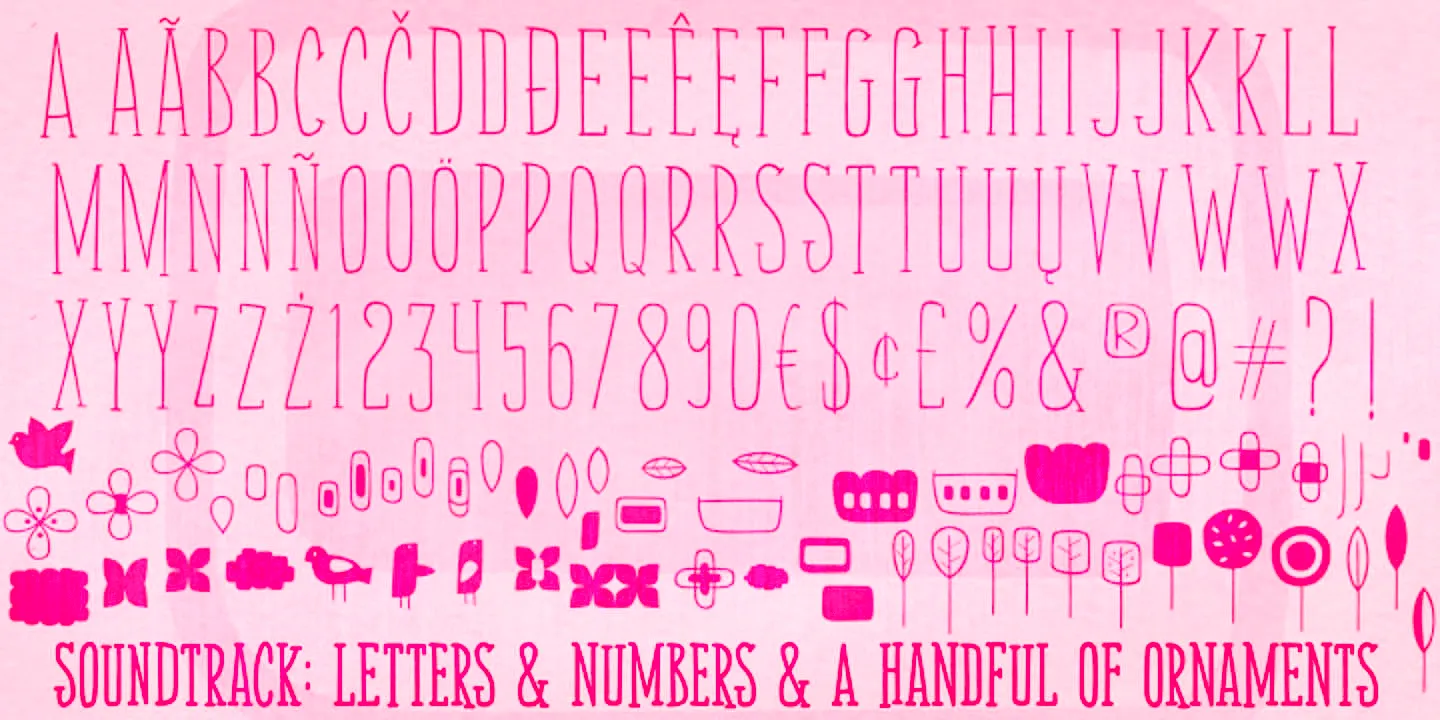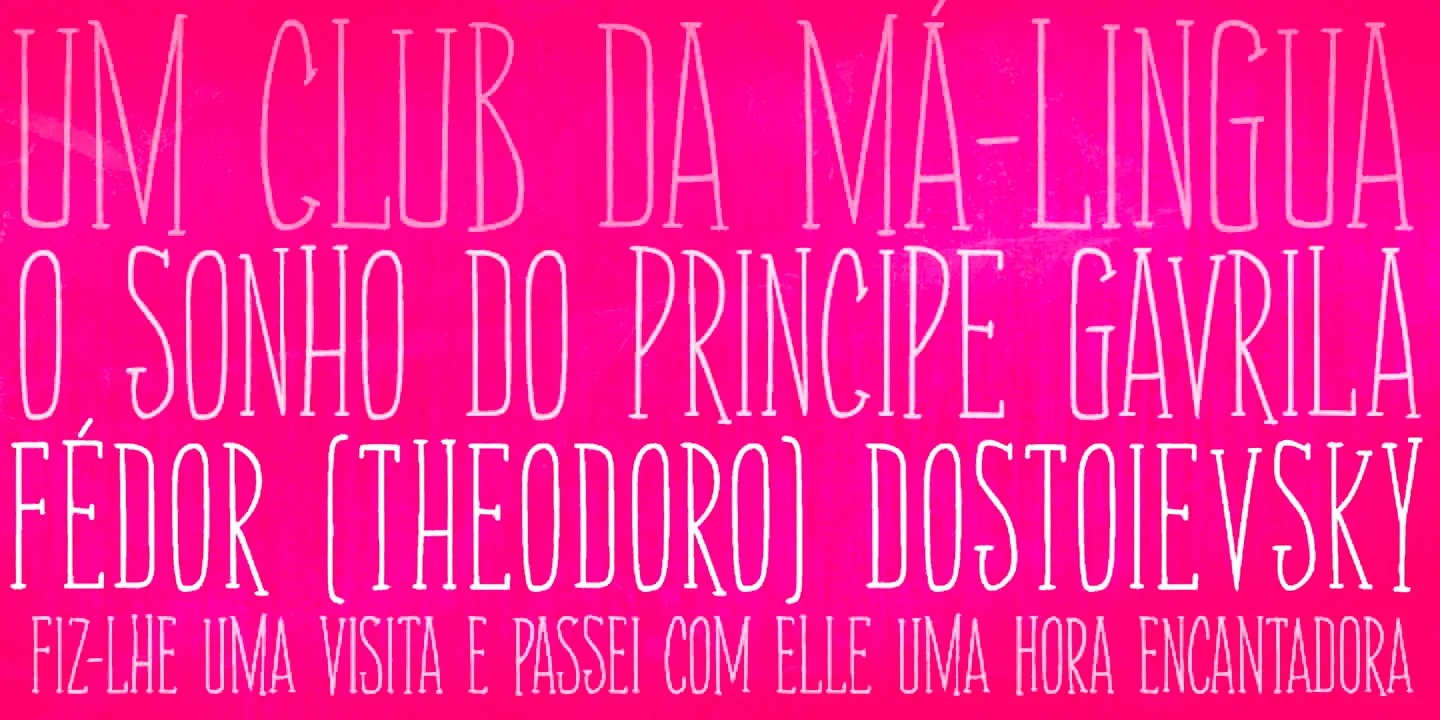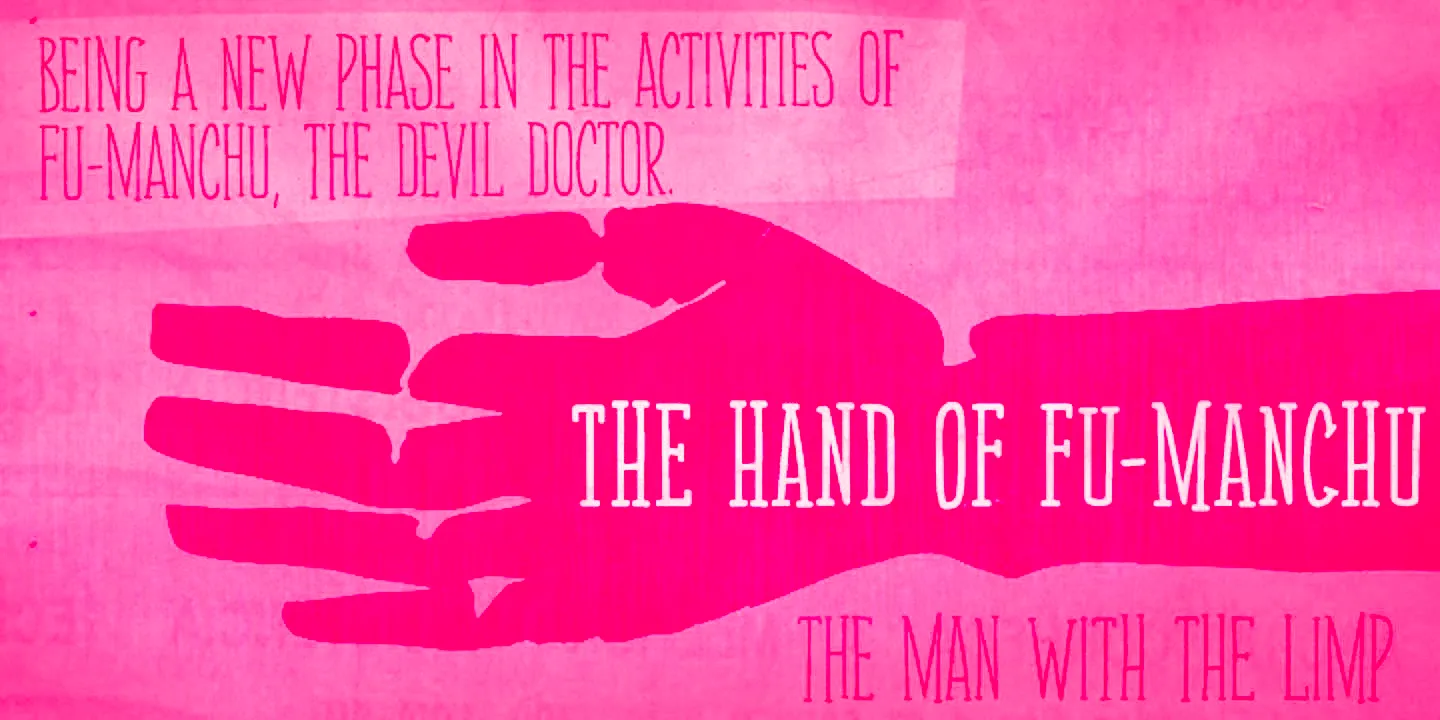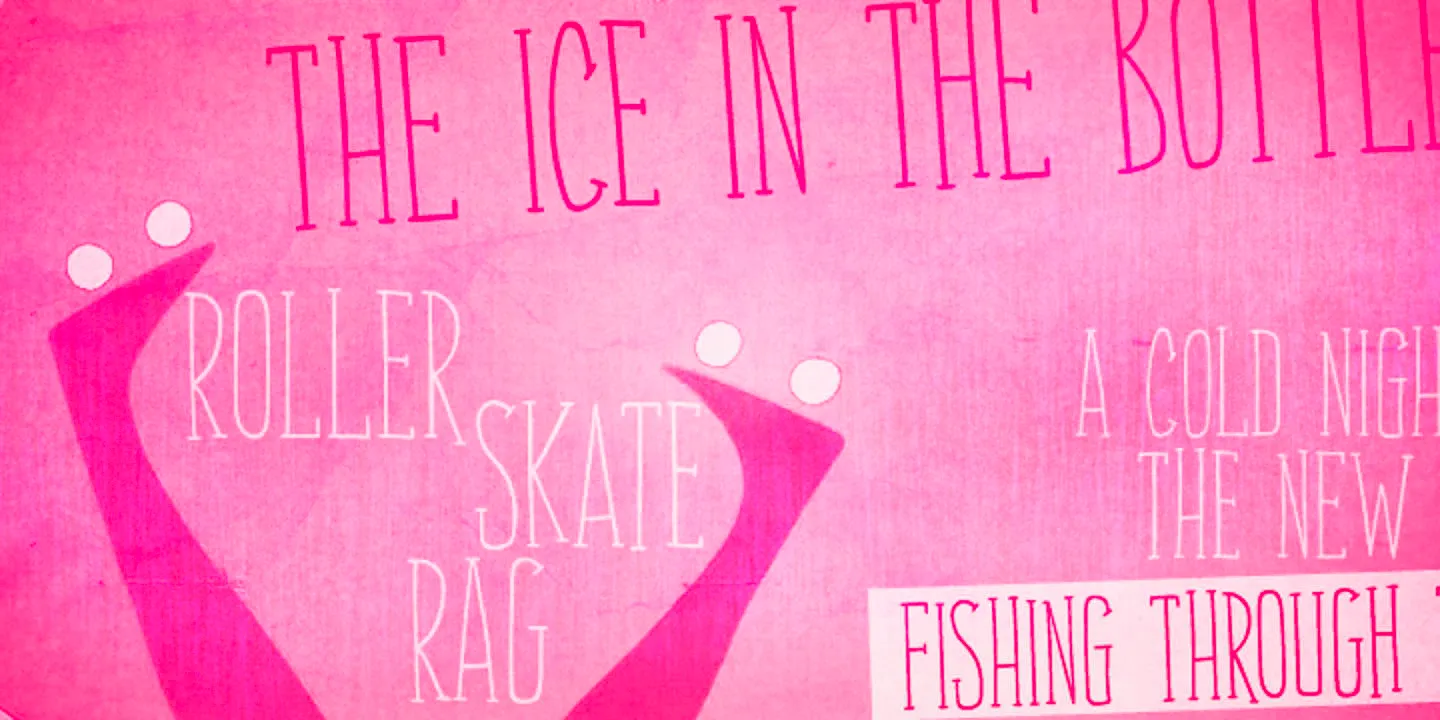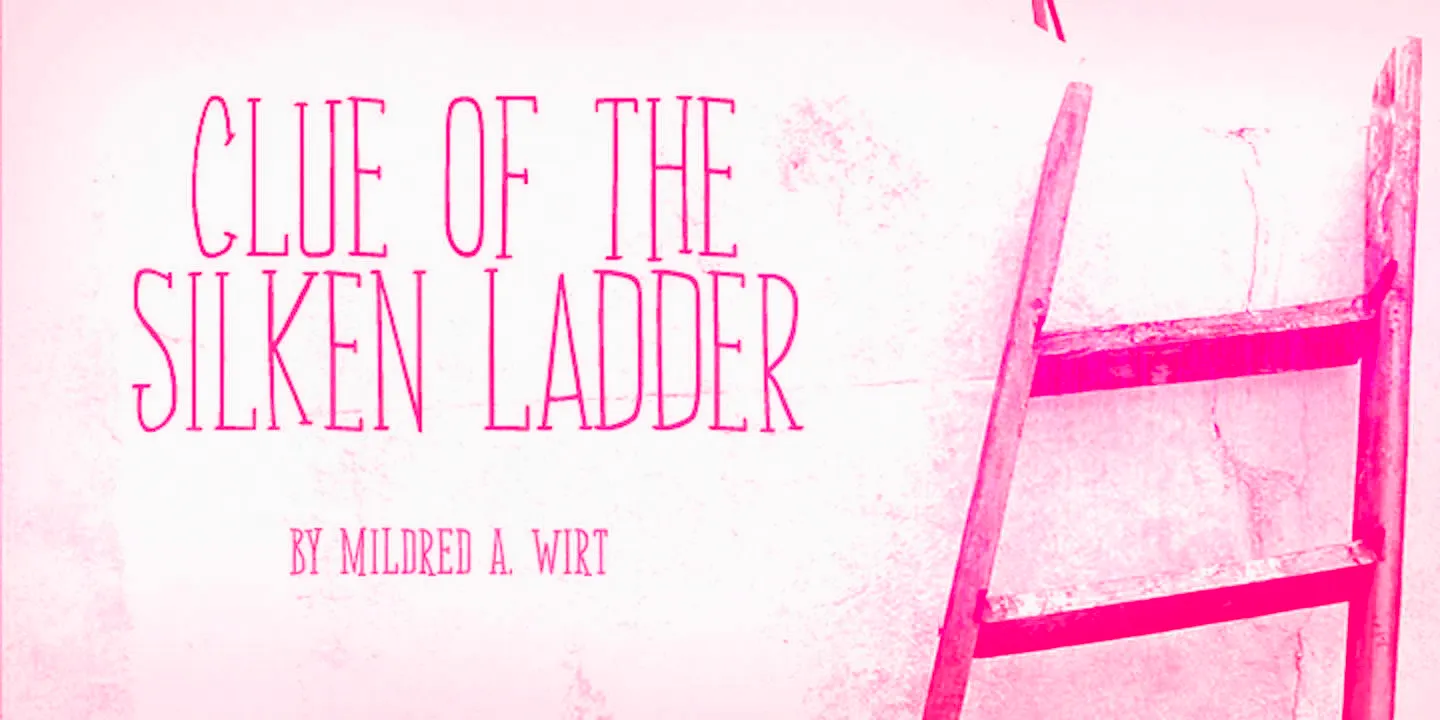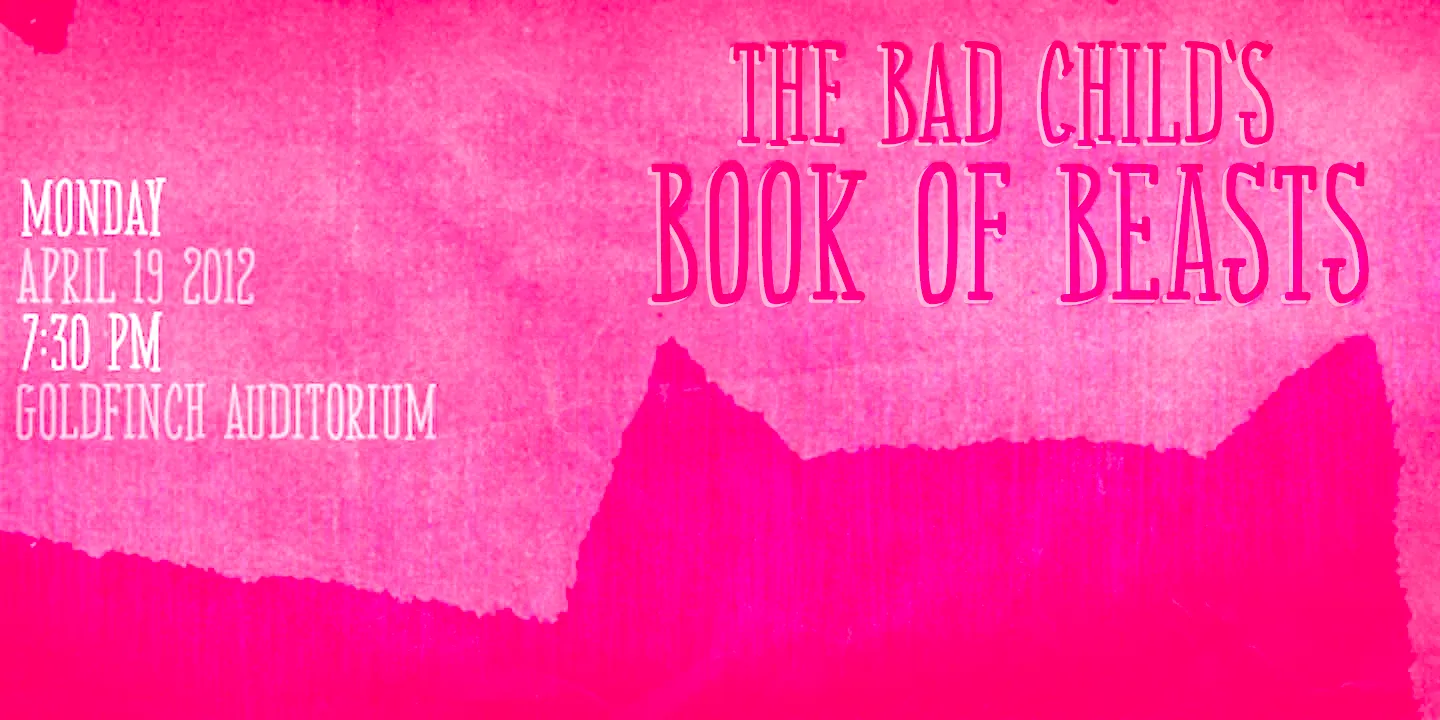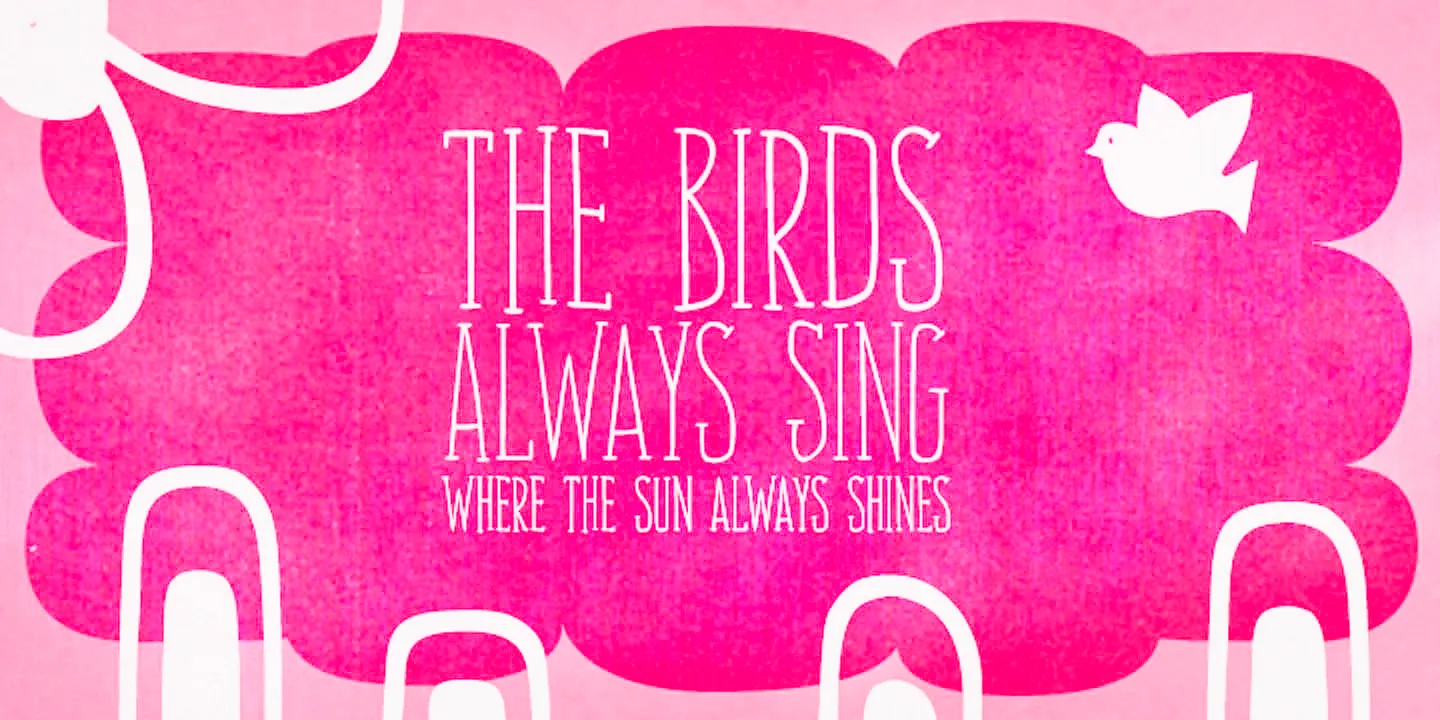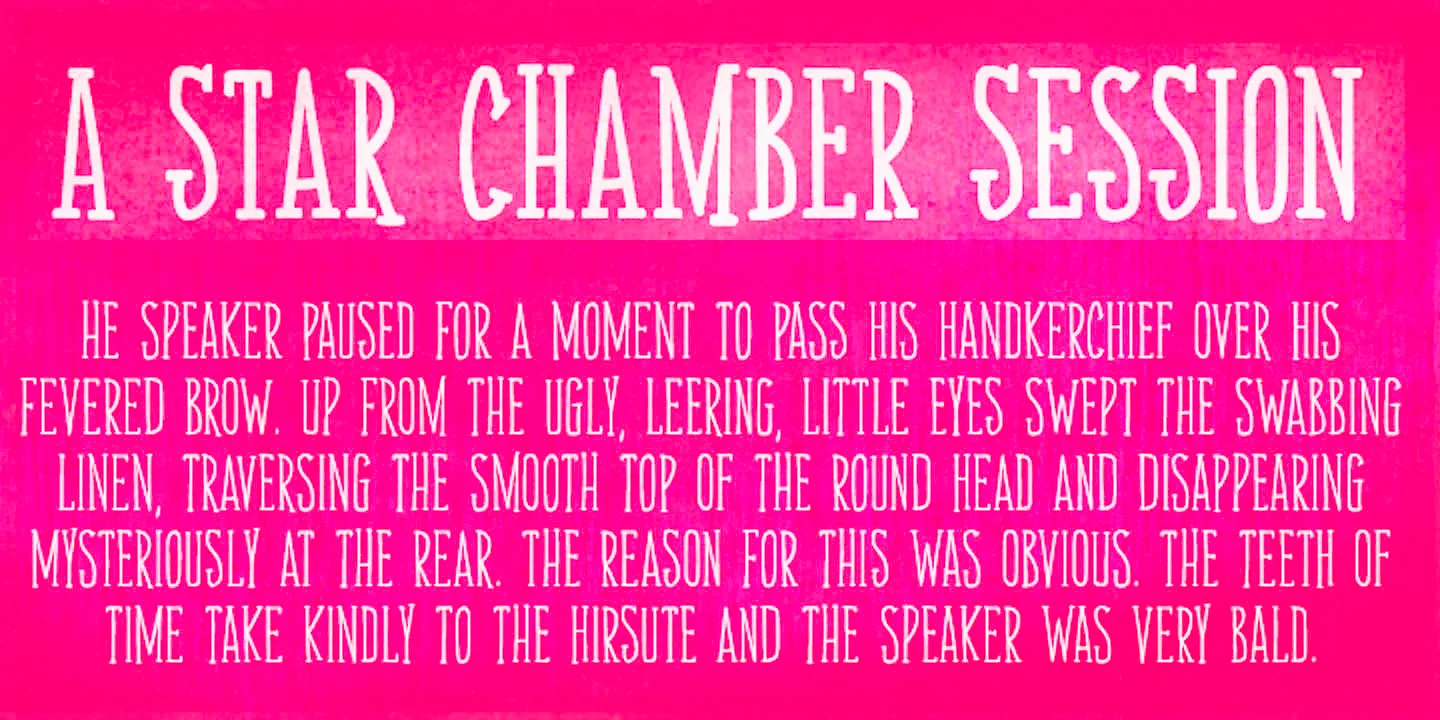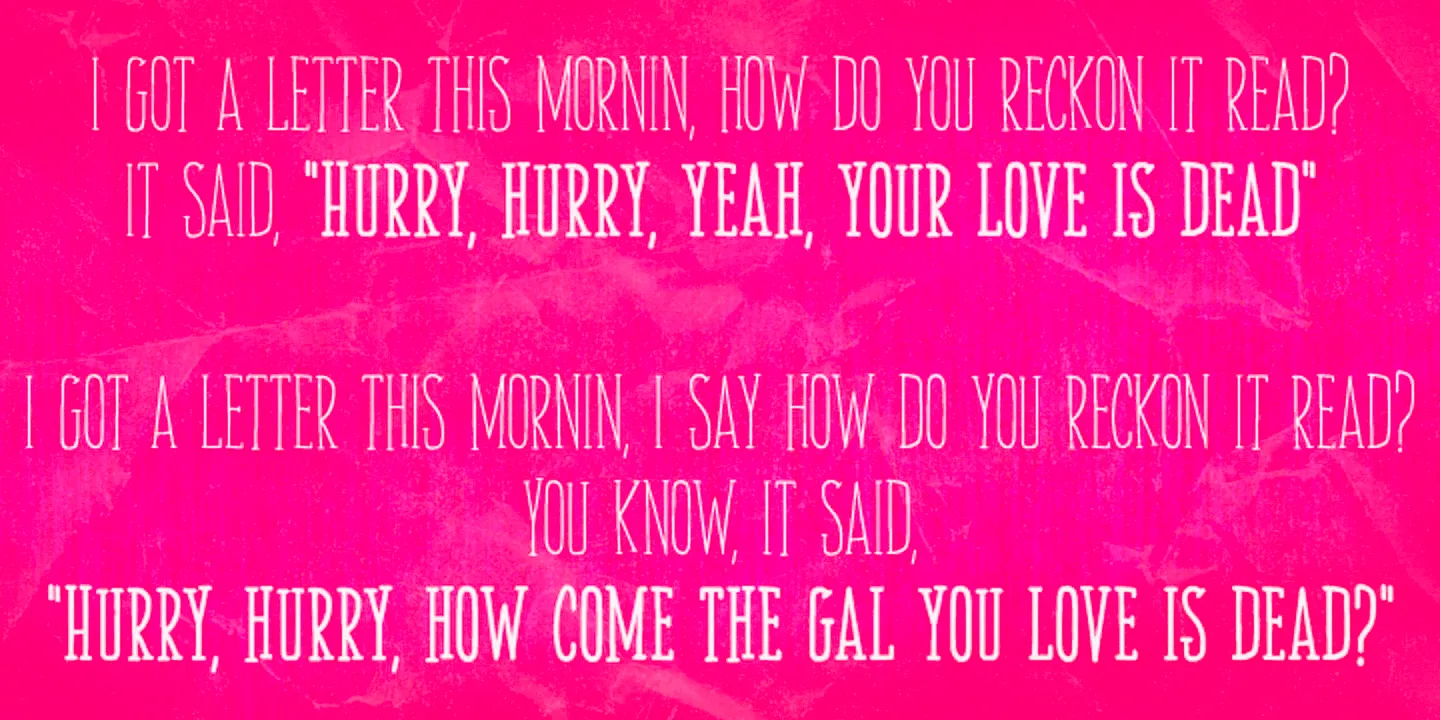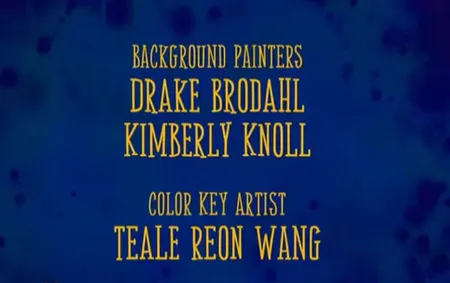
Soundtrack Font Family
Soundtrack
Soundtrack is a charmingly hand-lettered display slab serif with a tall, narrow structure. This monolinear, all-caps design features two alternates for each glyph, creating a natural, non-repetitive rhythm. It has two weights — plus handy dingbats in both for extra flair — and is suited for a wide range of typographic display applications, as well as for small chunks of text. Its personality is playful, making it an excellent fit for posters, book titles, branding, or packaging. Let the music sound!